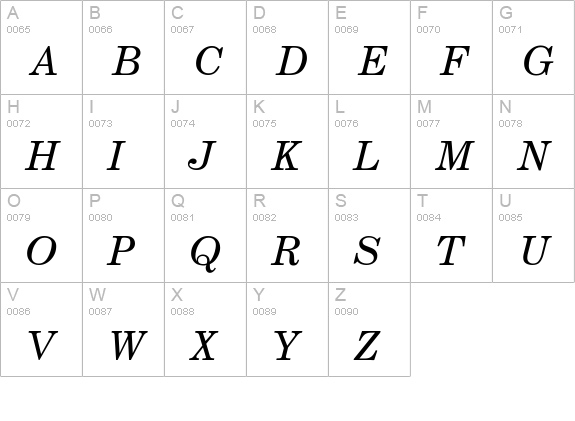
NewCenturySch 4 font is a modern and sleek typeface that exudes sophistication and elegance. With its clean lines and sharp edges, this font is perfect for adding a touch of professionalism to any project. The timeless design of NewCenturySch 4 font makes it versatile and suitable for a wide range of applications, from logos to branding materials to web design. What makes NewCenturySch 4 font even more appealing is that it is available for free download at FontsMarket.com. This means that you can easily access this stylish font and incorporate it into your creative projects without any cost. Whether you are a designer, a business owner, or a student, NewCenturySch 4 font is a valuable addition to your font collection. Download it today and elevate your design work with this elegant and modern typeface.